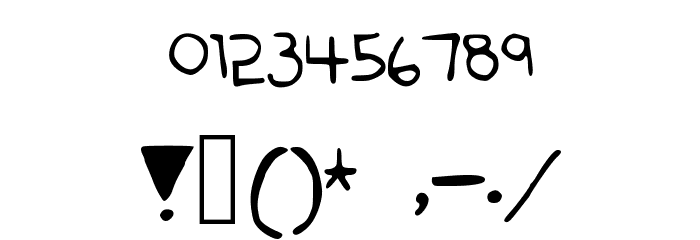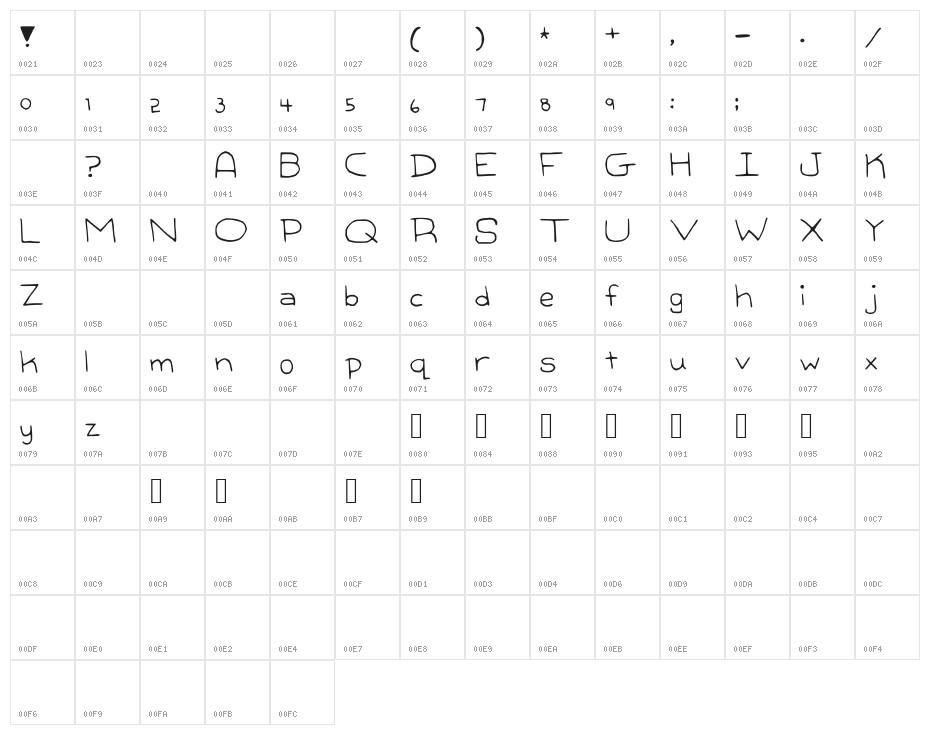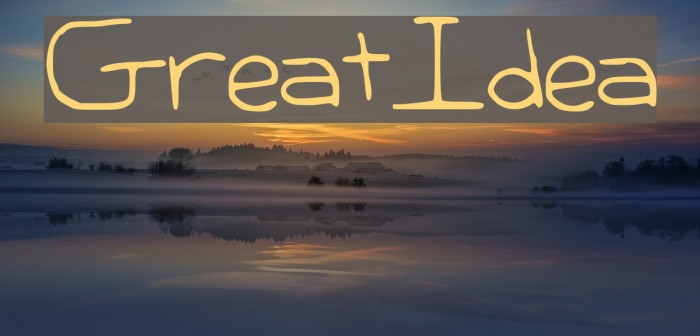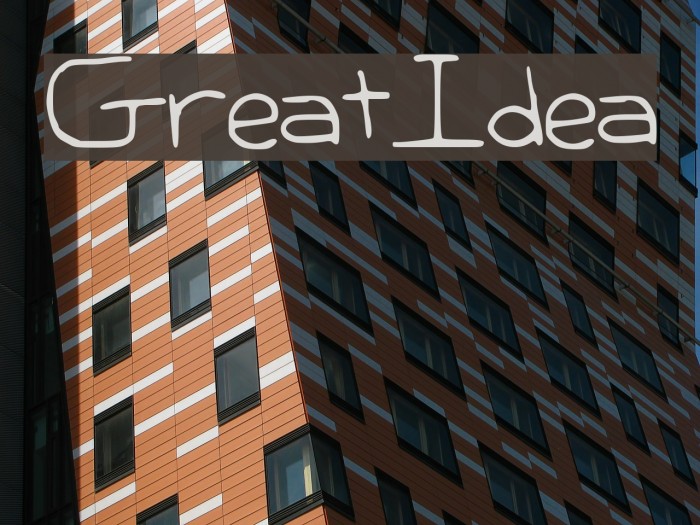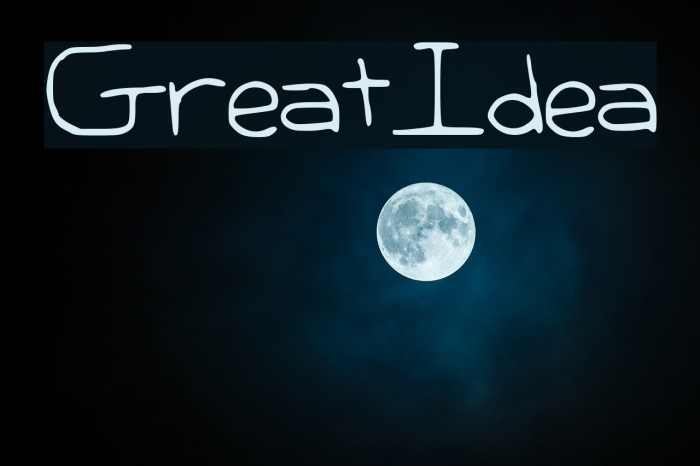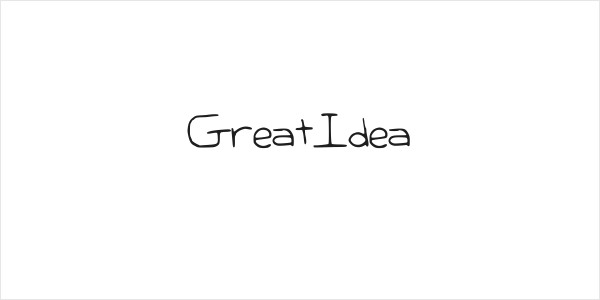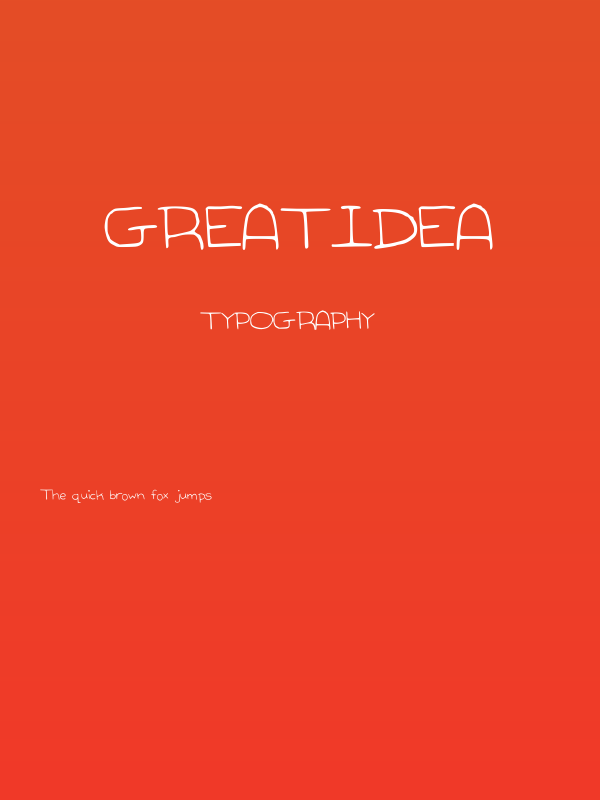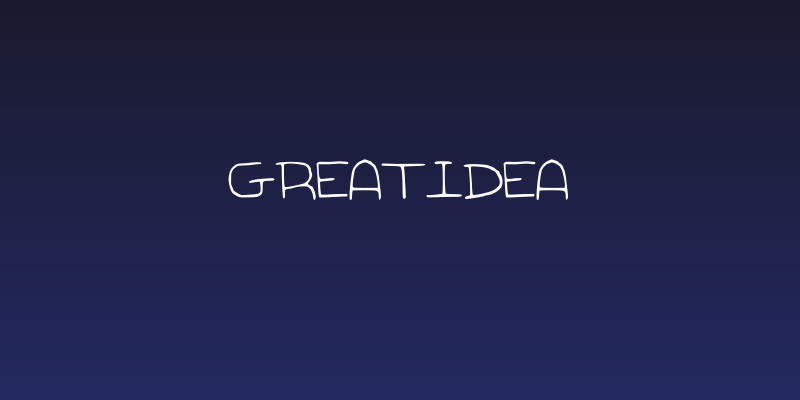
GreatIdea Font
GreatIdea Description
This font features a playful and casual handwritten style, characterized by its irregular strokes and slightly uneven baseline. The uppercase letters are bold and prominent, while the lowercase letters maintain a consistent flow with a touch of whimsy. The numerals are clear and legible, matching the overall informal aesthetic. Special characters are creatively designed, adding to the font's unique personality. The font's organic feel makes it suitable for projects that require a personal touch or a friendly, approachable vibe.